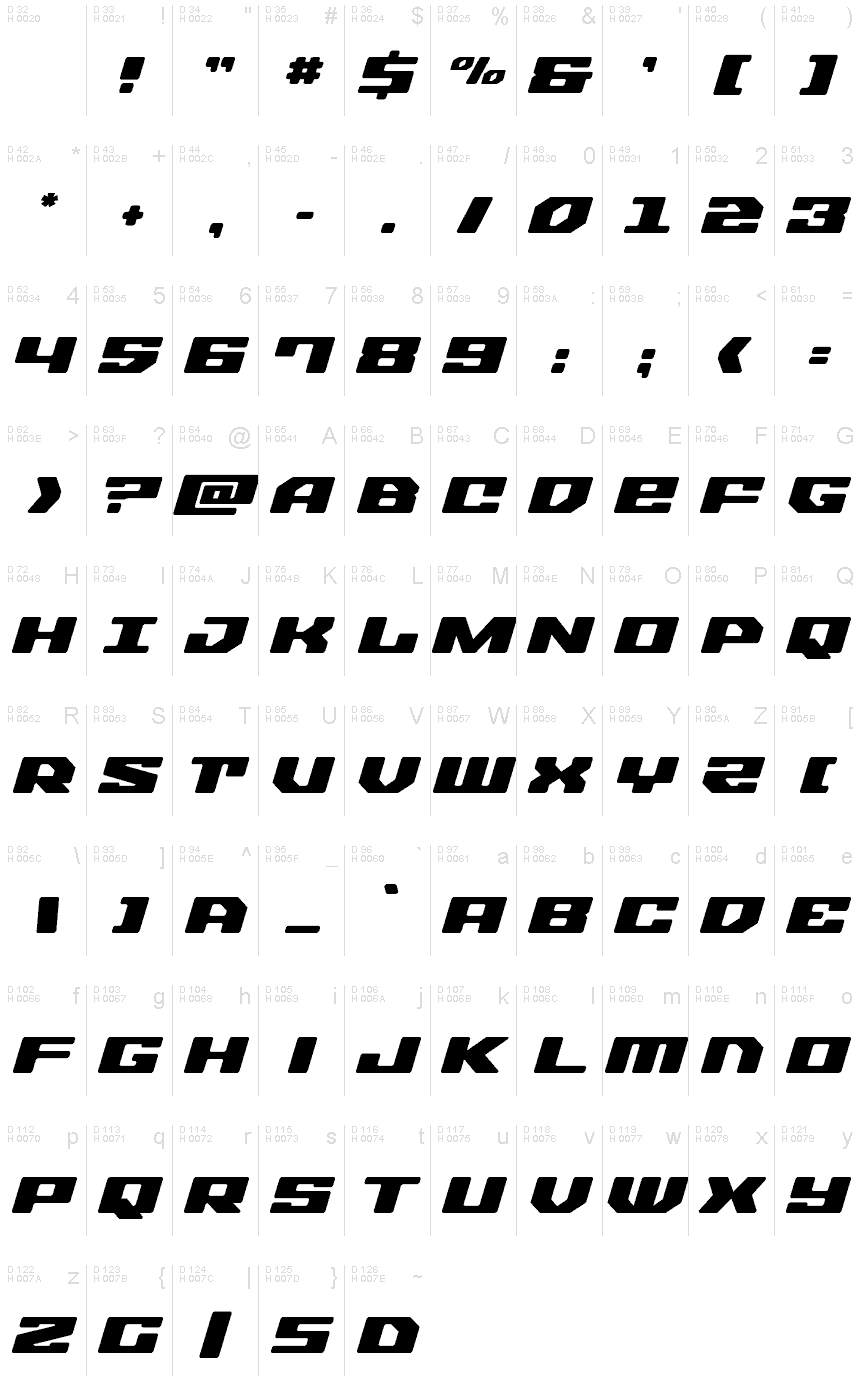
Fawkes Super-Italic
Fawkes Super-Italic font by Iconian Fonts is an expanded techno display font featuring prominent bold characters. The elements are geometric and angular with industrial inspirations and a futuristic message. Their strong artistic presence will be made to manifest wherever the font is displayed or printed.
Try it for poster design, packaging design, concert flyers, artist identity/logo design, record covers and labels, music videos, video games designs (cover/packaging), book covers of sci-fi stories or novels. The free font can also be implemented in website/computer interfaces where it’s used for logos and large titles only not small texts.